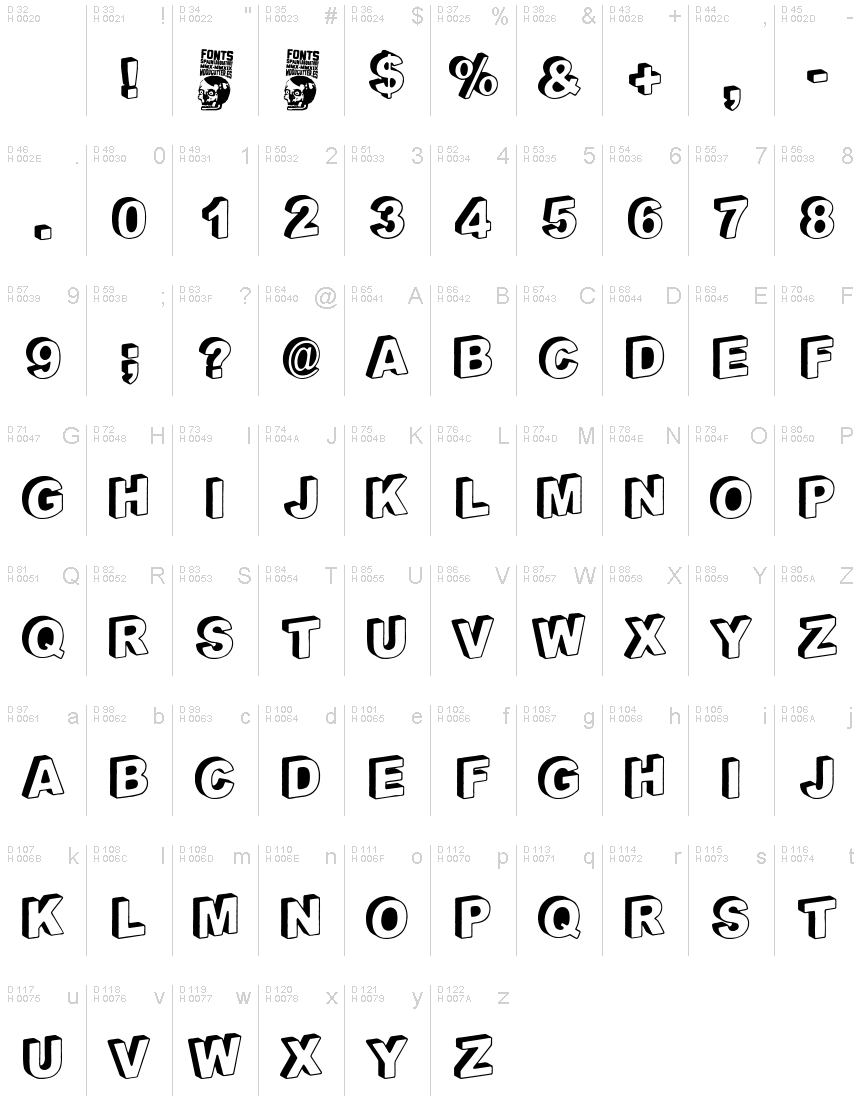
Benidorm Trip
Benidorm Trip font, designed by Woodcutter, is a dynamic display typeface with a bold 3D cartoon style. Its exaggerated and playful forms capture attention instantly, making it perfect for vibrant and creative projects. The bold weight adds impact and ensures readability even in playful layouts.